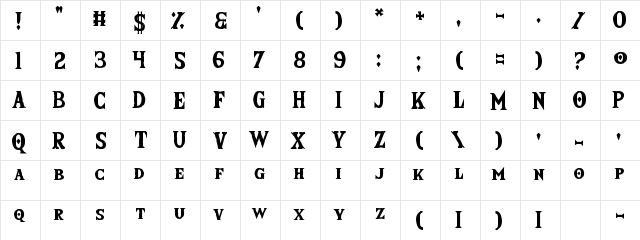
The Wild Breath of Zelda Regular
Design Context for The Wild Breath of Zelda Typeface
The Wild Breath of Zelda takes a measured approach to typography — its balanced proportions and neutral character make it a reliable workhorse for both digital and print work.